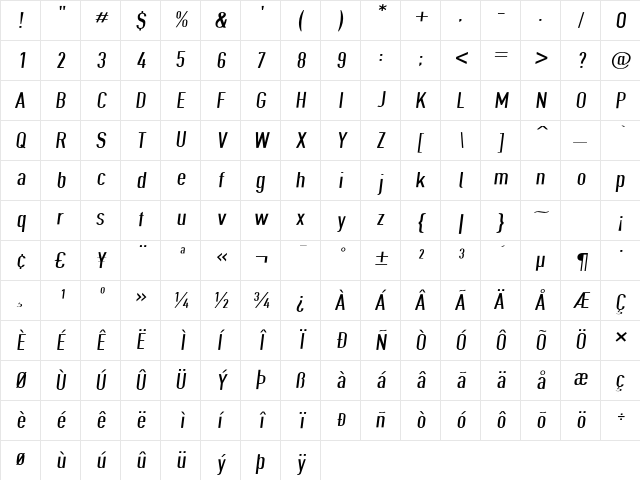
Give A Hoot DPExtObl
Style: DPExtObl
Design Context for Give A Hoot
Give A Hoot is a composed and adaptable typeface that performs quietly and consistently across a wide range of design contexts.